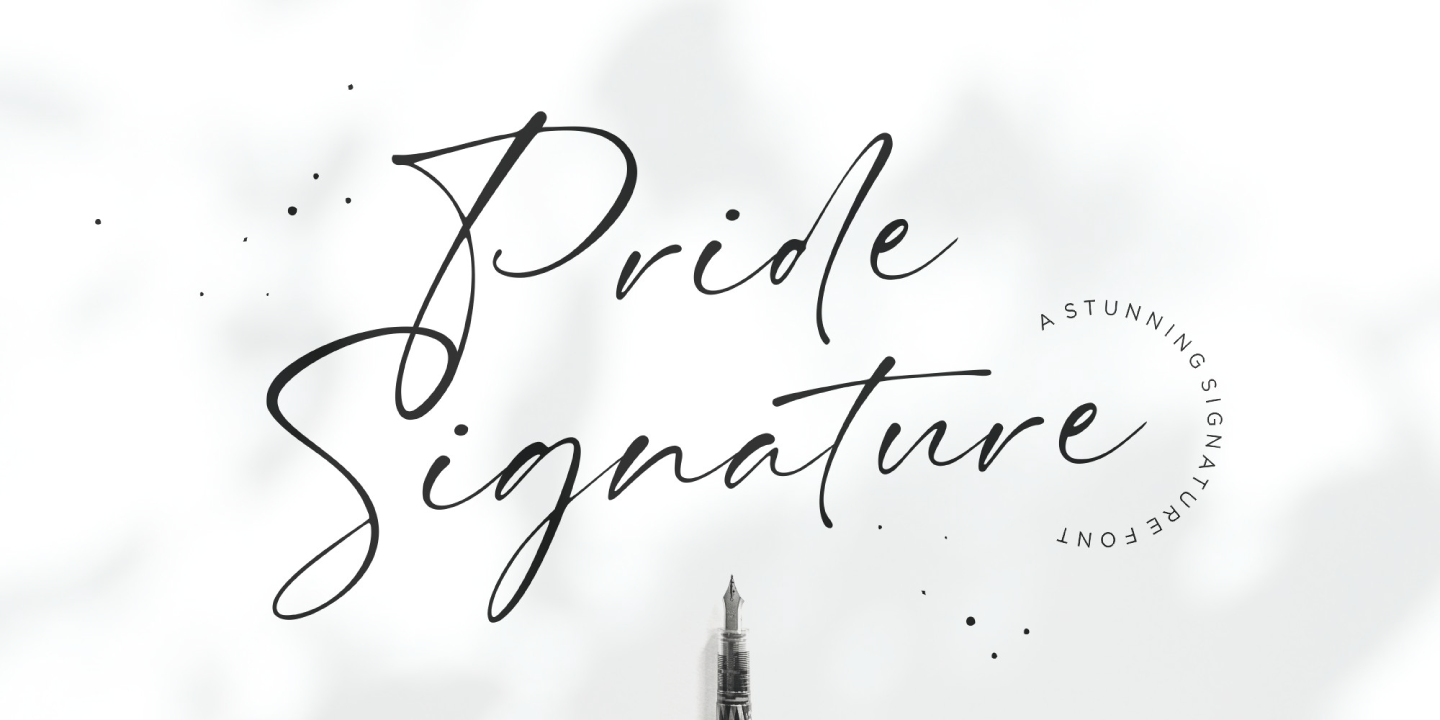
Pride Signature Font is perfect for personal branding projects, handwritten signature designs, authentic autograph recreations, premium business cards, elegant personal stationery, signature logo creations, distinguished certificate designs, personalized invitation cards, executive correspondence materials, and bespoke calligraphy services. Its signature character makes it ideal for projects requiring personal authenticity and handwritten sophistication that celebrates individual identity.
What makes Pride Signature Font exciting is its authentic recreation of confident handwritten signatures that capture the unique personality and distinguished character of personal penmanship with remarkable digital precision. The font features flowing script letterforms with natural variations that mimic genuine ink-on-paper signatures while maintaining excellent legibility for personal branding. Its signature character transforms typed text into expressions of personal pride and individual distinction that resonate with authentic human connection.
The Pride Signature Font family includes Regular, Bold, Light, Elegant, Distinguished, Executive, and Personal variations. Each style preserves the font's signature essence while offering different levels of handwritten authenticity and personal weight for creating genuine autograph graphics. The comprehensive character set includes signature flourishes, personal ornaments, handwritten decorations, and distinguished glyphs essential for authentic personal branding and signature typography projects.
Personal brands and executive professionals consistently choose Pride Signature Font Free Download for projects demanding authentic signature typography solutions. The font's handwritten character instantly establishes personal credibility while ensuring clear communication across individual marketing channels. Its versatility spans from subtle signature touches to bold statements that celebrate the importance of personal identity and the distinguished art of handwritten communication.
Whether you're developing personal brand identities, creating signature marketing materials, or designing individual communications, Pride Signature Font provides the perfect combination of handwritten authenticity and contemporary functionality. The font's personally crafted letterforms ensure genuine signature character while maintaining excellent performance across various personal applications and distinguished business communications.
The personal heritage of Pride Signature Font makes it exceptional for creating meaningful connections with audiences who value individual authenticity and personal distinction. Its signature precision and handwritten appeal work seamlessly across traditional personal stationery and modern digital identity platforms. The font performs beautifully in both large-scale personal displays and intimate signature communications.
Sign with distinction using Pride Signature Font and discover how authentic signature typography can enhance your personal projects with genuine handwritten appeal and distinguished sophistication. This remarkable typeface combines signature tradition with contemporary functionality, making it indispensable for individuals seeking to establish authentic personal identity and celebrate the timeless elegance of distinguished handwritten communication.